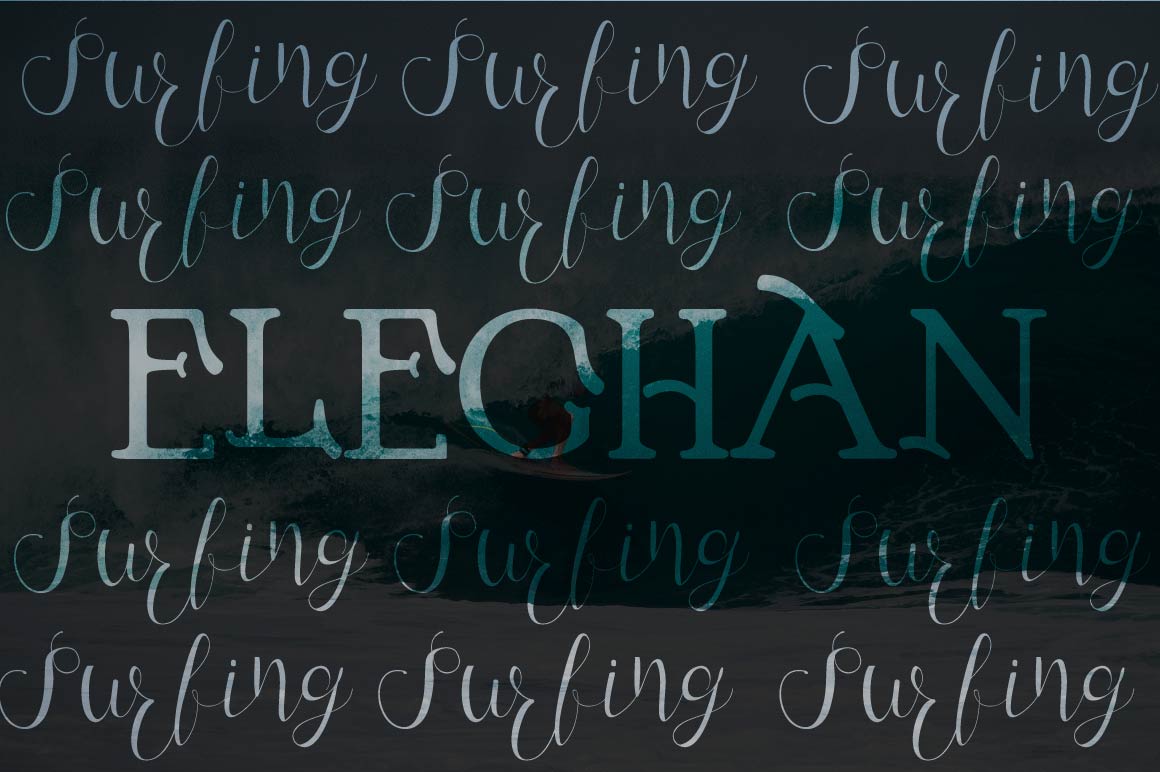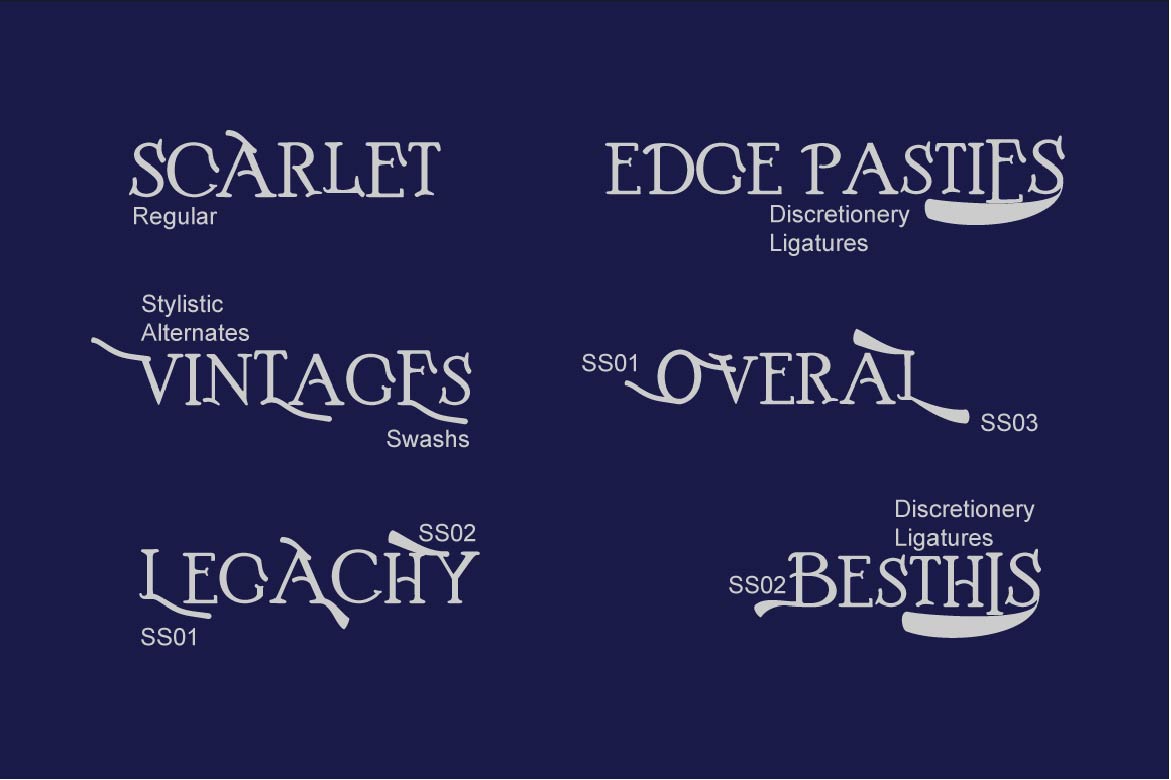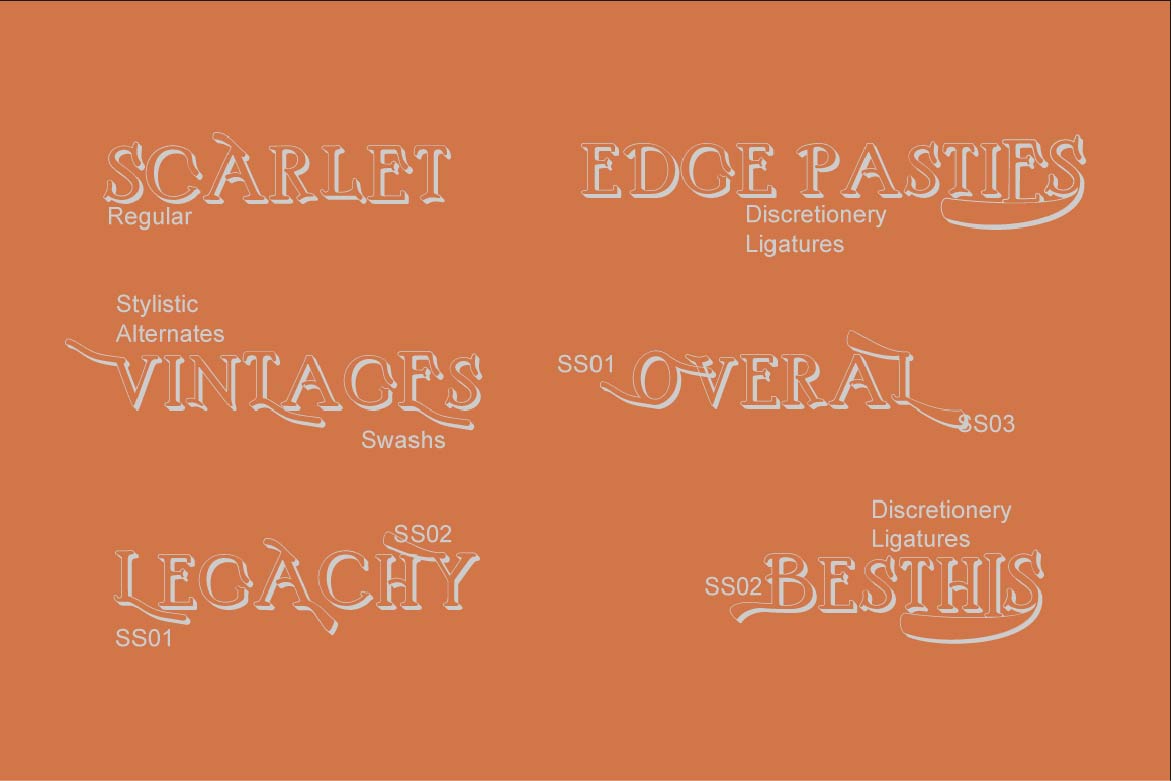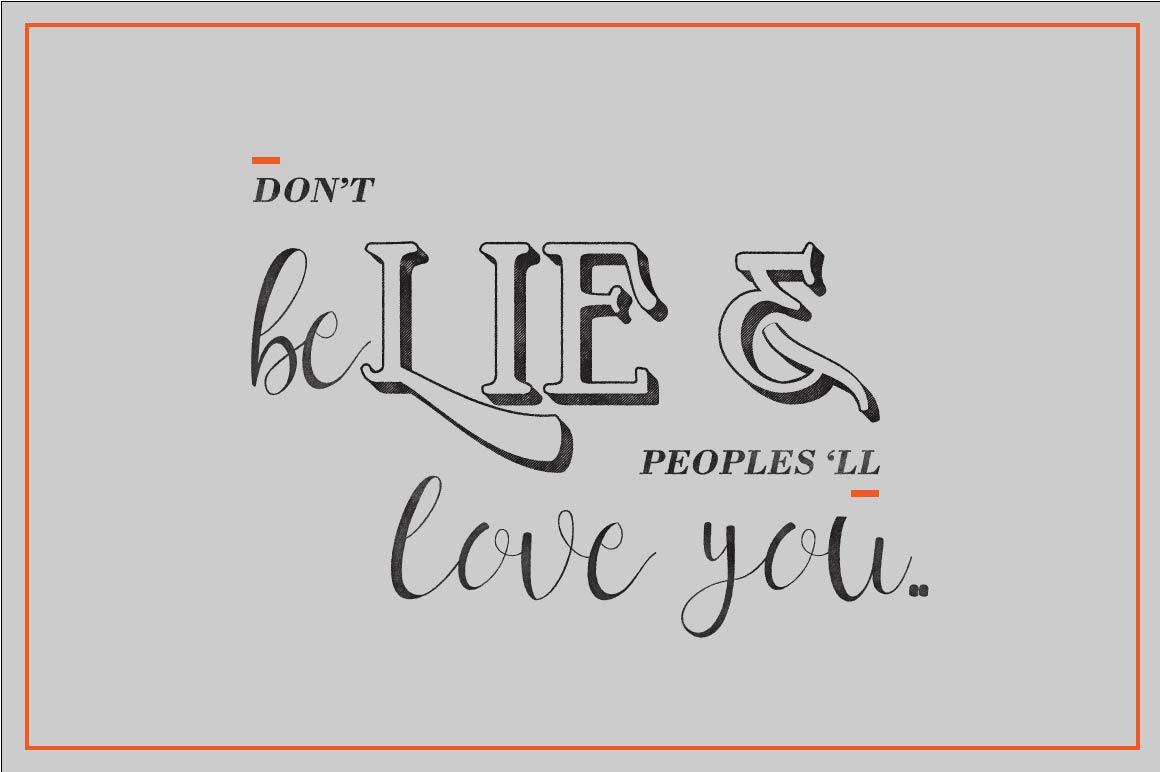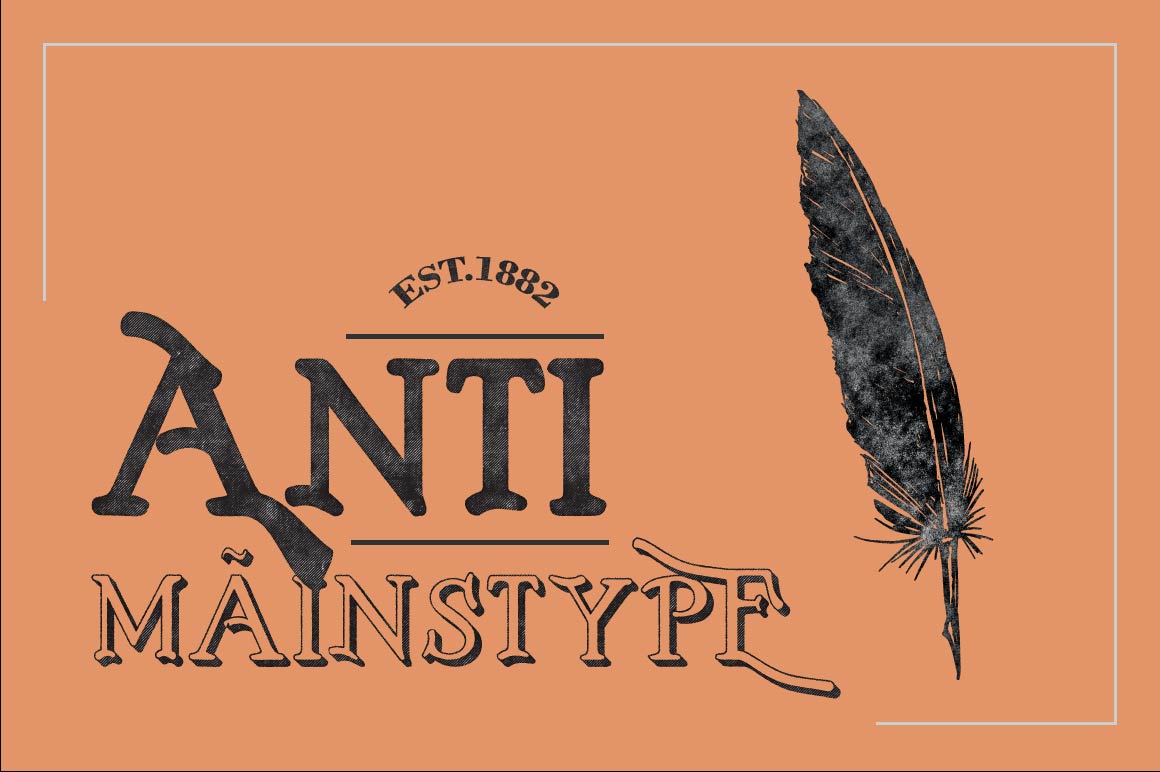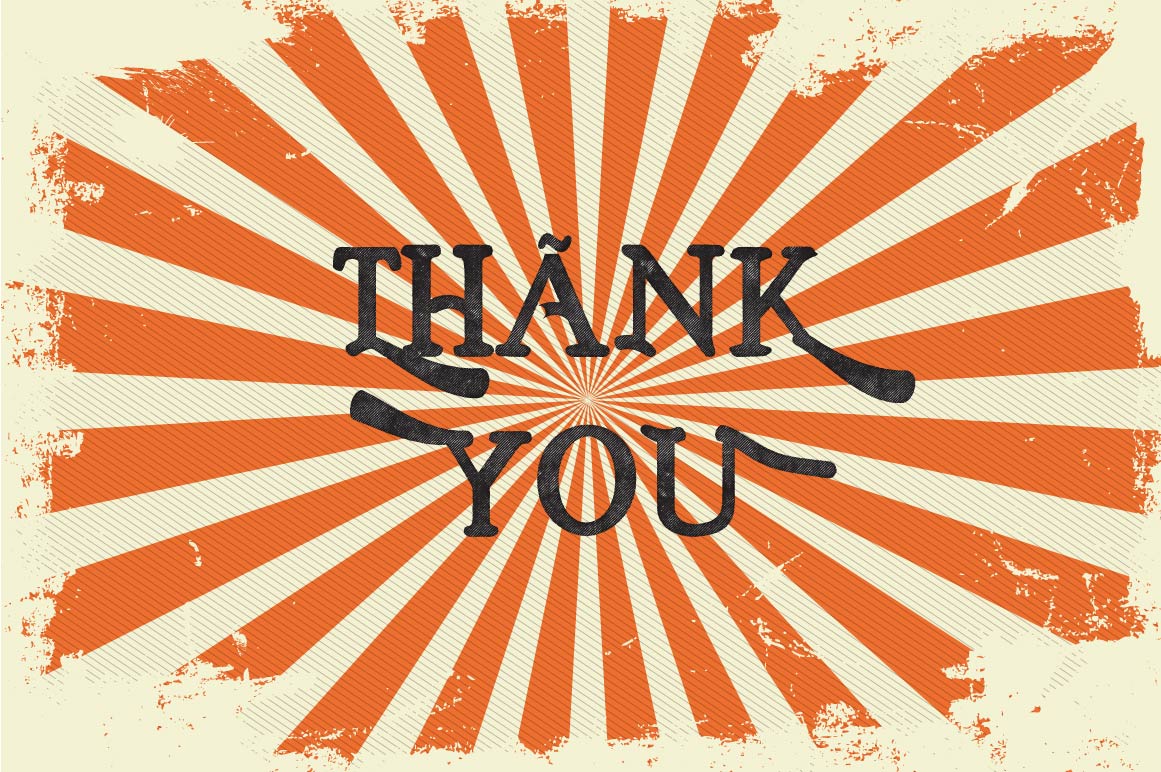
The Perfect Match for Your Creative Vision
There’s that one moment when a project just clicks into place – the design is cohesive, the message is clear, and the visuals pop. For designers, it’s a rush of excitement and a sense of accomplishment. But what makes all the difference in creating that ‘aha’ moment? Sometimes, it’s just the right font. Enter the Boston Family Font Font, a stunning display family designed to make your creative vision shine.
| 👤 Author | Ajir |
With its versatility and extensive features, the Boston Family Font Font is a valuable addition to any designer’s toolkit. Whether you’re working on a print or digital project, this font is sure to make a lasting impact. Its wide range of applications means you can trust it to deliver results, no matter the scope or scale of your project.
Boston Family Font Font Key Features
- Font Family: Boston Family Font Font is a collection of serif fonts designed to evoke a sense of classic elegance and sophistication.
- Unique Characteristics: Features a unique blend of traditional and modern elements, with subtle flourishes and ornaments that add a touch of sophistication to any design.
Boston Family Font Review
I recently had the chance to work with the Boston Family Font, and I have to say, it’s a unique addition to any project. ✨ The font’s classic feel and traditional vibe make it perfect for anything from historical reenactments to modern-day designs that need a touch of nostalgia. The extensive character set and multiple weights offer endless possibilities for customization. ✨
However, there are some limitations to consider. ⚠️ The font’s bold and italic styles can sometimes appear inconsistent, which might be jarring for designers who prioritize uniformity. Additionally, the font’s default settings can be quite dense, making it challenging to read in smaller sizes. ⚠️
Overall, I think the Boston Family Font is a solid choice for designers who want to add a touch of elegance and sophistication to their projects. While it may not be the most versatile font out there, its strengths lie in its ability to evoke a sense of tradition and classic style. If you’re looking to create a design that exudes refinement and sophistication, the Boston Family Font is definitely worth considering.
Pros:
- Classic, traditional feel
- Extensive character set and multiple weights
- Perfect for nostalgic or historical designs
Cons:
- Inconsistent bold and italic styles
- Dense default settings can be challenging to read
Some common use cases for the Boston Family Font Font include:
- Business cards and stationery
- Wedding invitations and event materials